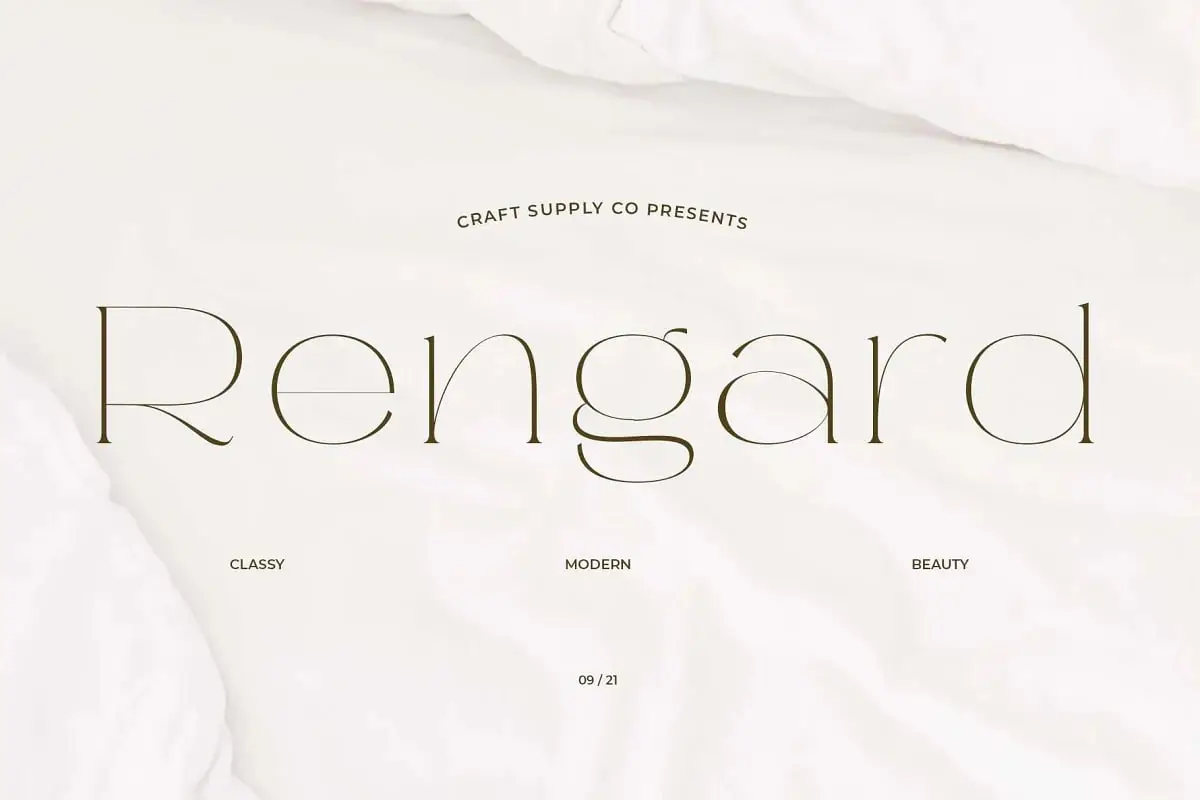
Rengard-Modern Serif Typeface
The Rengard Modern Serif Typeface is a sophisticated font designed to bring a touch of elegance to your projects. This typeface features a clean and contemporary serif style, making it suitable for a variety of applications, from branding to editorial design.
• Modern serif design with a unique character
• Multiple weights for versatile usage
• Uppercase and lowercase letters included
• Numerals and punctuation for complete text support
This typeface is ideal for creating logos, headlines, and any design that requires a refined touch. Use it in print materials, websites, and user interfaces to convey professionalism and style.